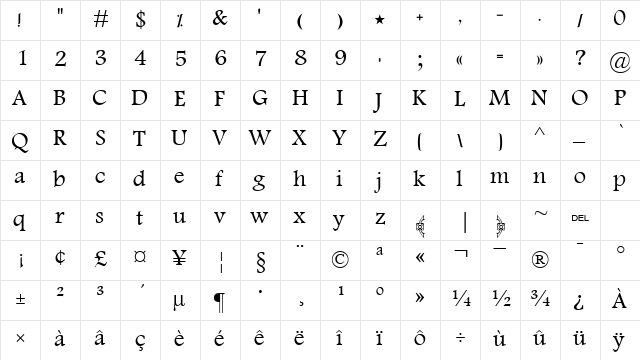
khalaad Susan Font Preview
Design Context for khalaad Susan Typeface
khalaad Susan is a composed and adaptable typeface that performs quietly and consistently across a wide range of design contexts.